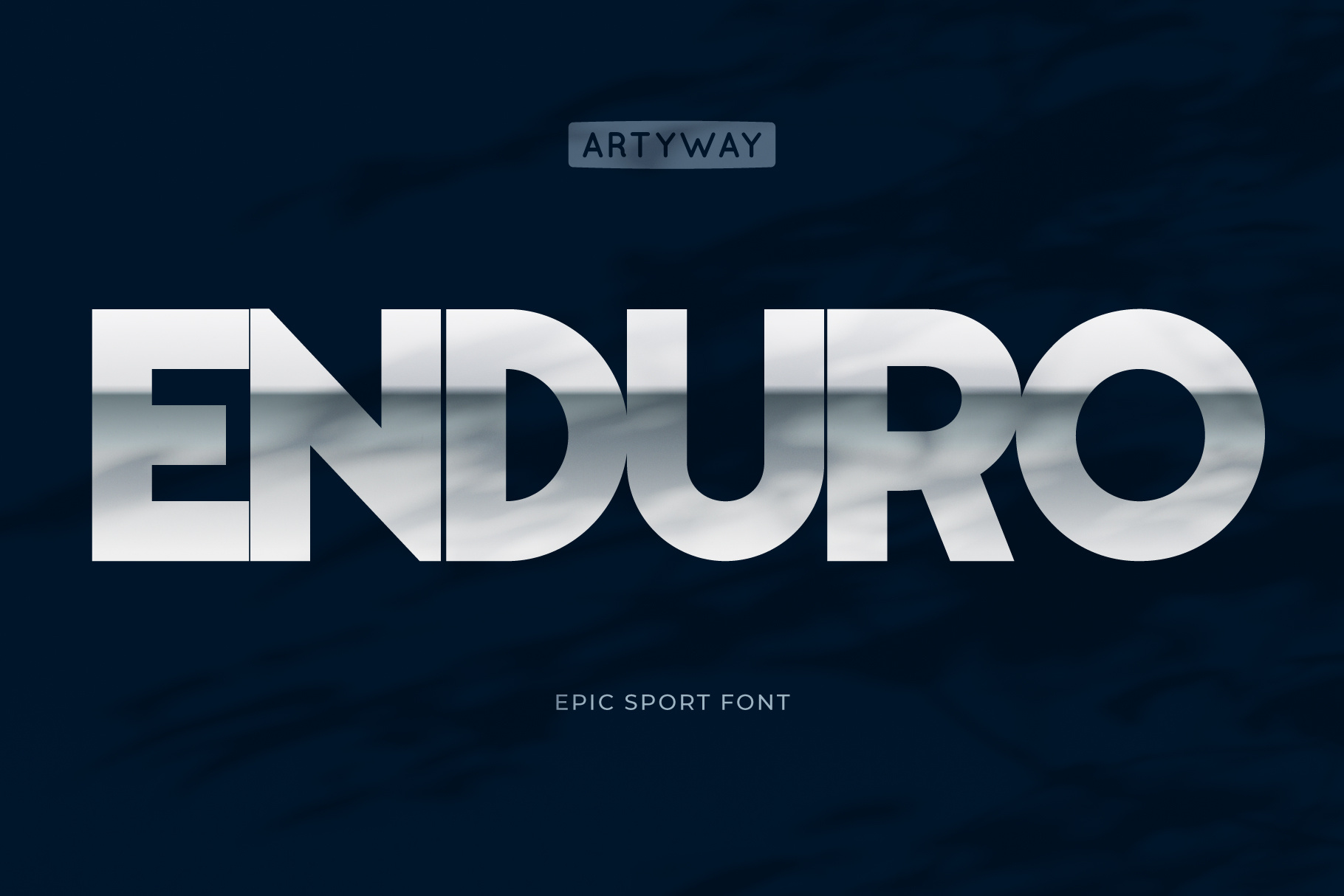
Enduro Sport Font
Enduro β bold and durable display font with a modern metallic aesthetic. Its sharp edges and reflective texture make it the perfect choice for projects that need strength, style, and endurance.
πͺ Perfect for:
Sports branding and event posters
Automotive and industrial designs
Gaming logos and bold editorial headlines
Features:
β Strong and modern metallic look
β Ideal for bold and impactful visuals
β Perfect for projects demanding durability and style
Bring power and confidence to your designs with Enduro!